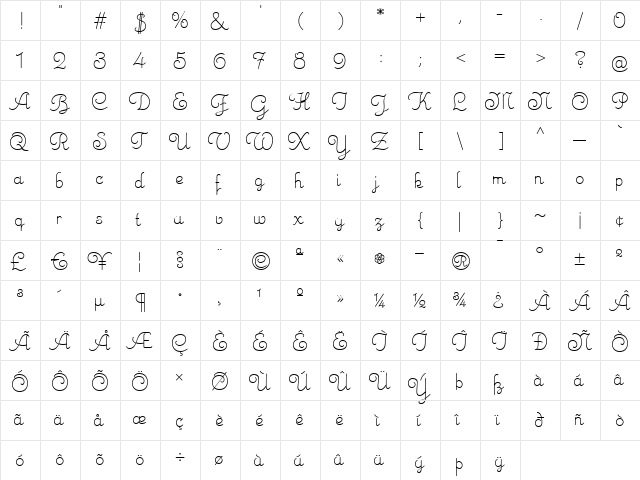
Emily Regular Regular
Design Context for Emily Regular Typeface
Emily Regular is a composed and adaptable typeface that performs quietly and consistently across a wide range of design contexts.